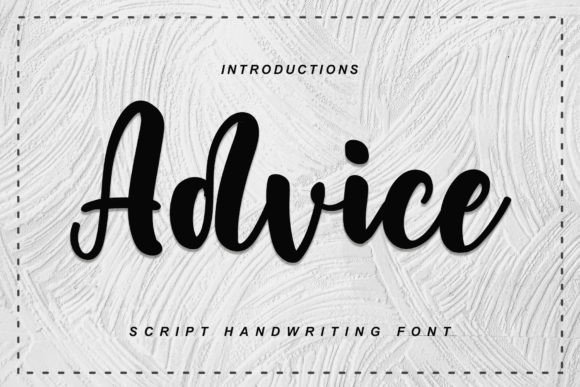
I still remember the frustration of working on a project, hours poured into every detail, only to hit a roadblock: finding the right font. My client wanted something stylish, yet timeless; elegant, yet approachable. I scoured the internet, tried countless fonts, but nothing seemed quite right. That’s when I stumbled upon Advice Font – a stylish handwritten font that instantly resonated with my design sensibilities.
An Honest Review of Advice Font
- ✨ Timeless Classic Calligraphy: Advice Font draws inspiration from classic calligraphy, giving it a sophisticated and elegant feel.
- ✅ Balanced and Varied: The font’s balanced and varied design makes it perfect for a wide range of projects, from branding to wedding invitations.
- 💫 Contemporary Atmosphere: Despite its classic inspiration, Advice Font has a distinctly modern atmosphere, making it perfect for designers looking for a fresh take on traditional calligraphy.
- 👍 Impeccable Form: The font’s impeccable form ensures that it remains legible and beautiful, even at smaller sizes.
While Advice Font is an exceptional font, there are a few minor quirks to be aware of:
- ⚠️ Limited Multilingual Support: Advice Font may not support all languages, so be sure to check the font’s specifications before use.
- 🤔 Some Glyphs Require Manual Adjustment: A few glyphs may require manual adjustment to ensure proper spacing and alignment.
The Story Behind Advice Font
Advice Font was designed by a team of typographers who sought to create a font that would bring timeless elegance to modern design. Inspired by classic calligraphy, they crafted a font that is both beautiful and legible. With its impeccable form and balanced design, Advice Font is perfect for designers looking for a sophisticated, yet approachable font.
Q: What is Advice Font?
A: Advice Font is a stylish handwritten font with a contemporary atmosphere and impeccable form, inspired by timeless classic calligraphy.
Q: What is Advice Font used for?
A: Advice Font is perfect for a wide range of design projects, including branding, wedding invitations, posters, and social media graphics.
Q: Is Advice Font easy to read?
A: Yes, Advice Font is designed to be legible and beautiful, even at smaller sizes.